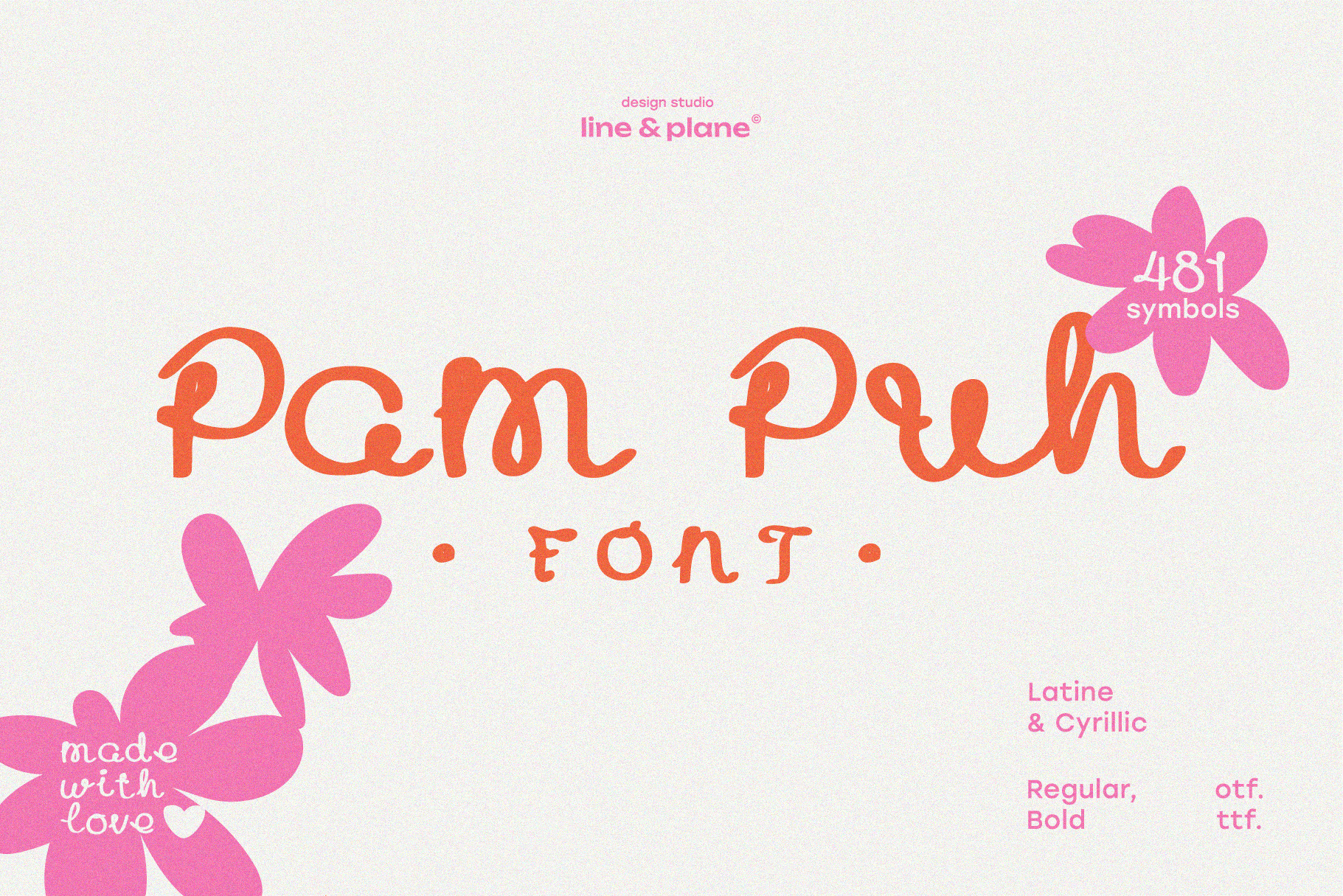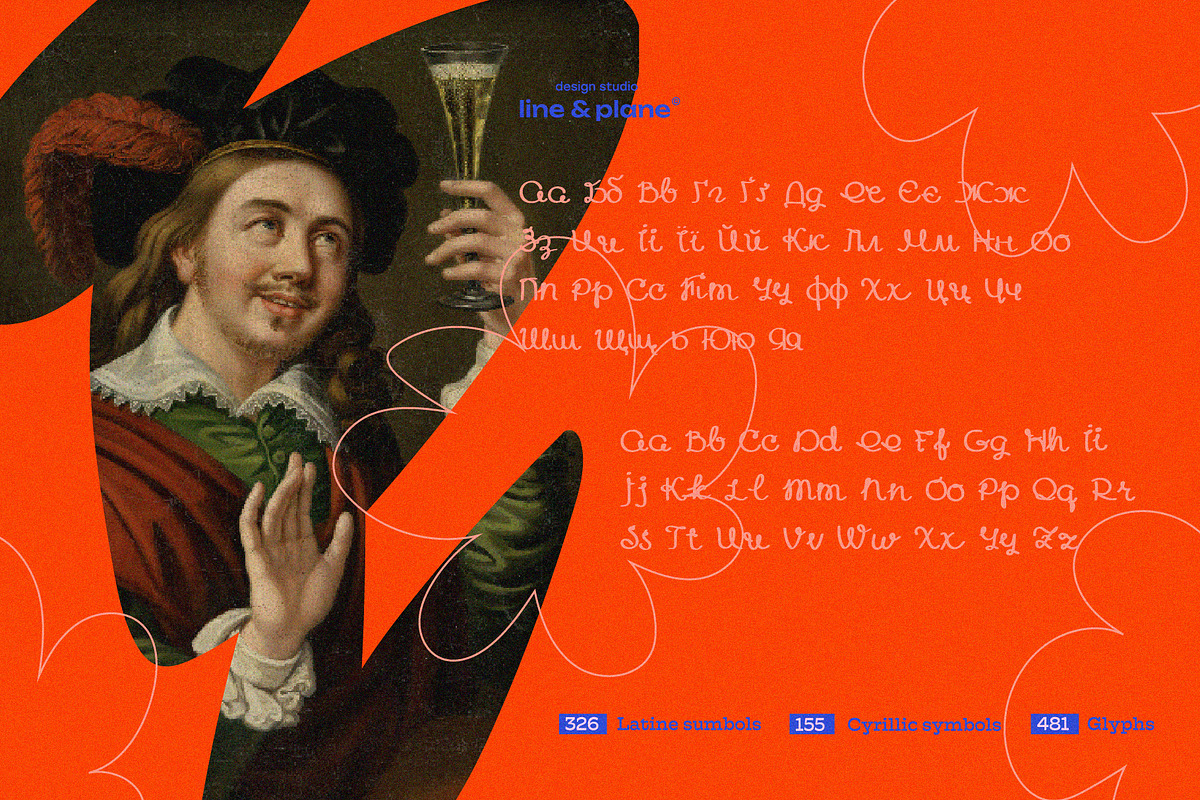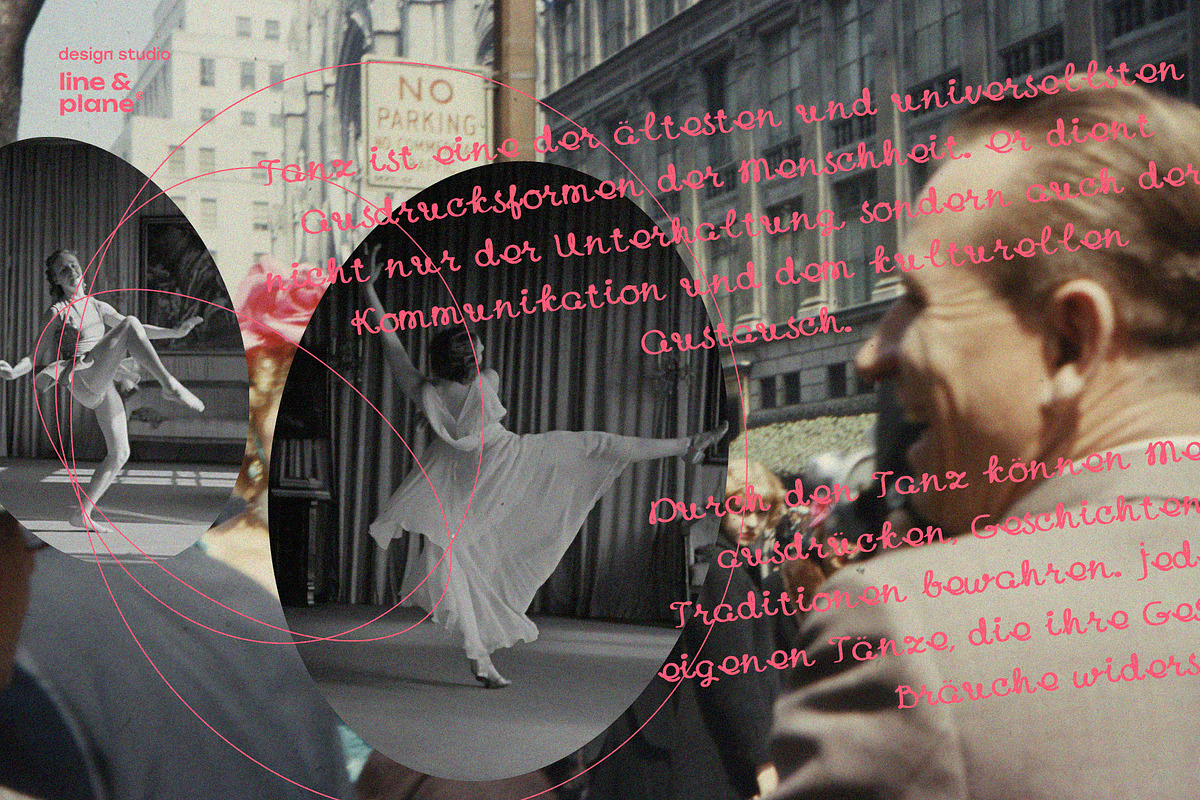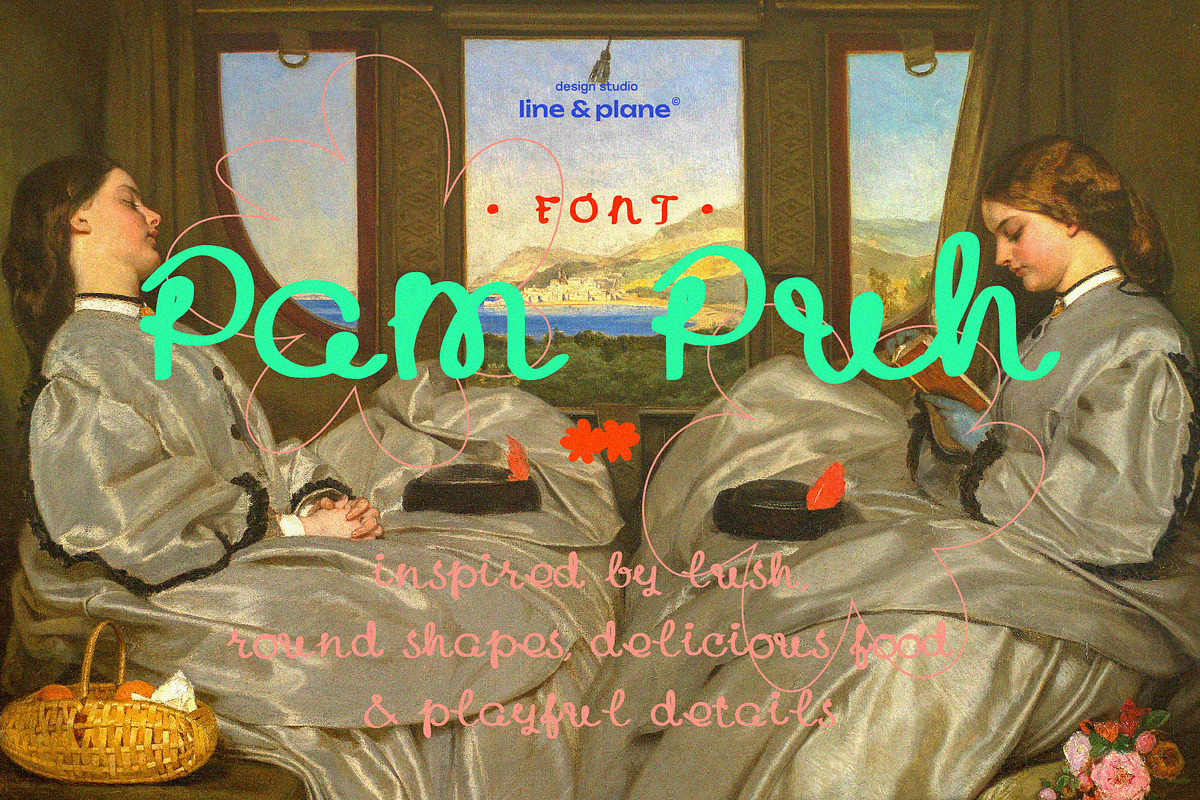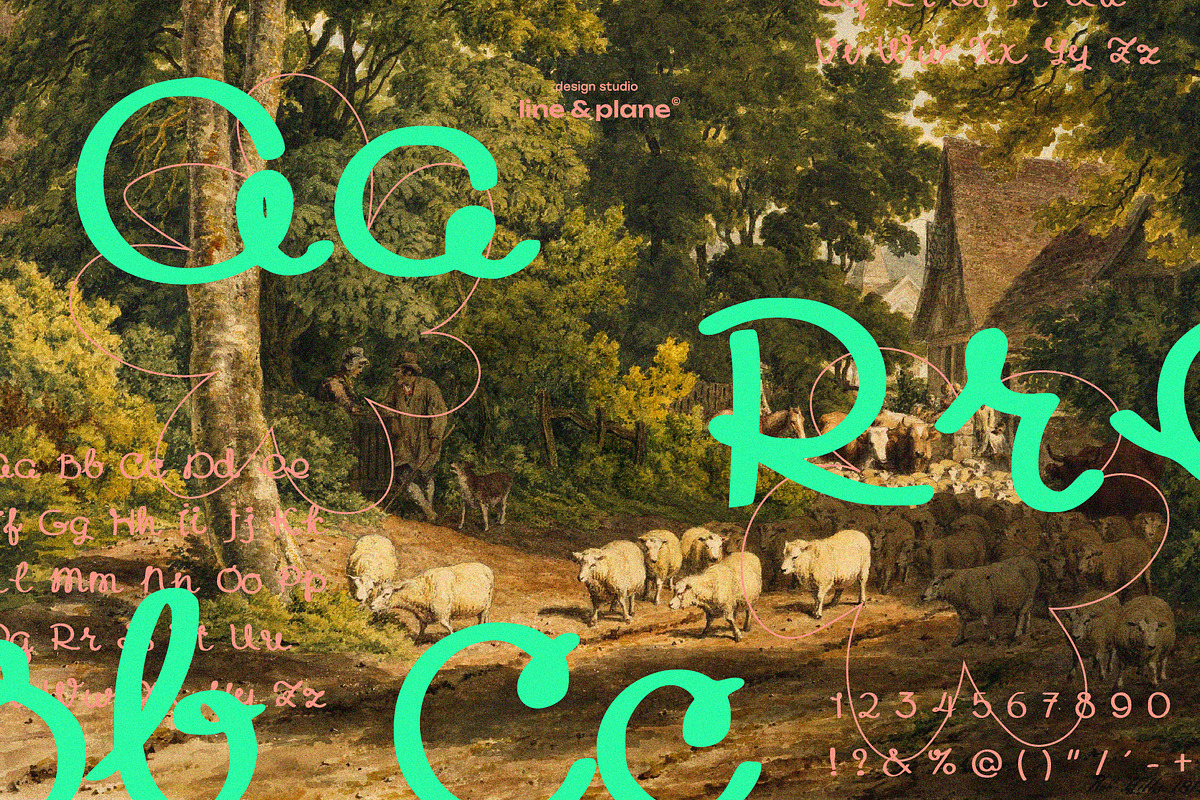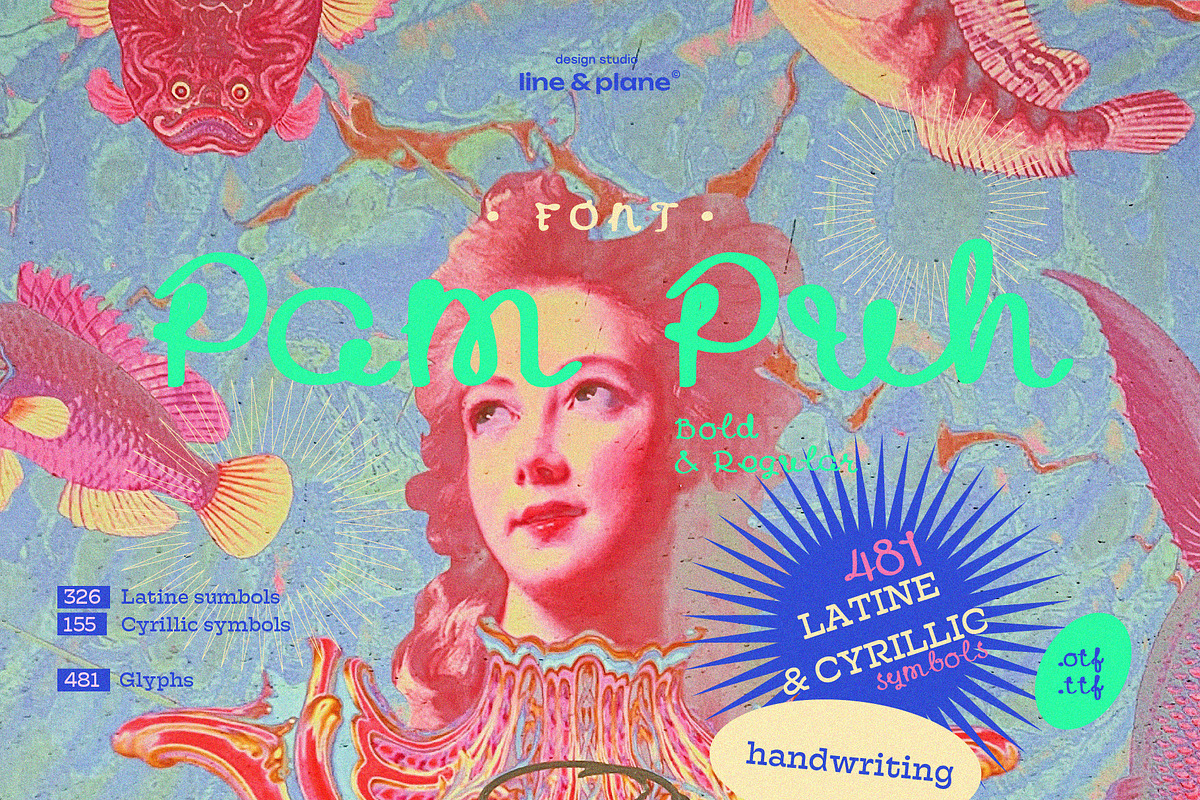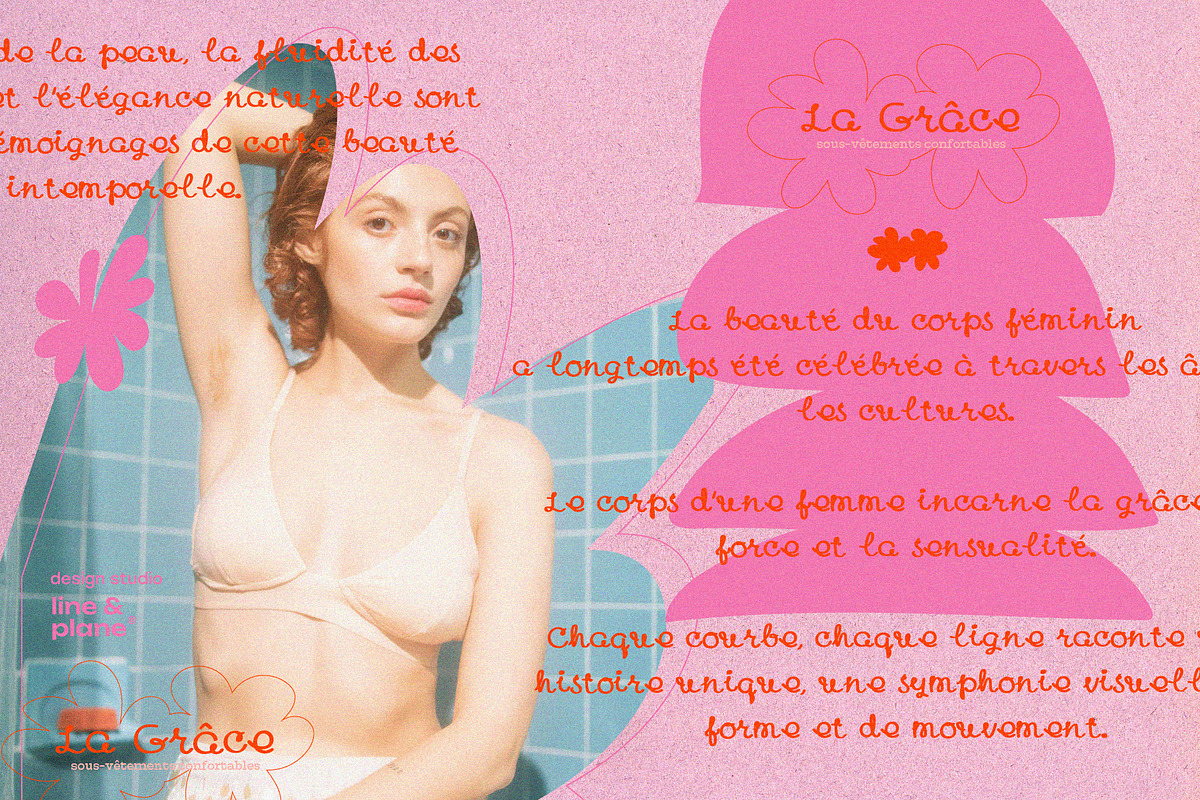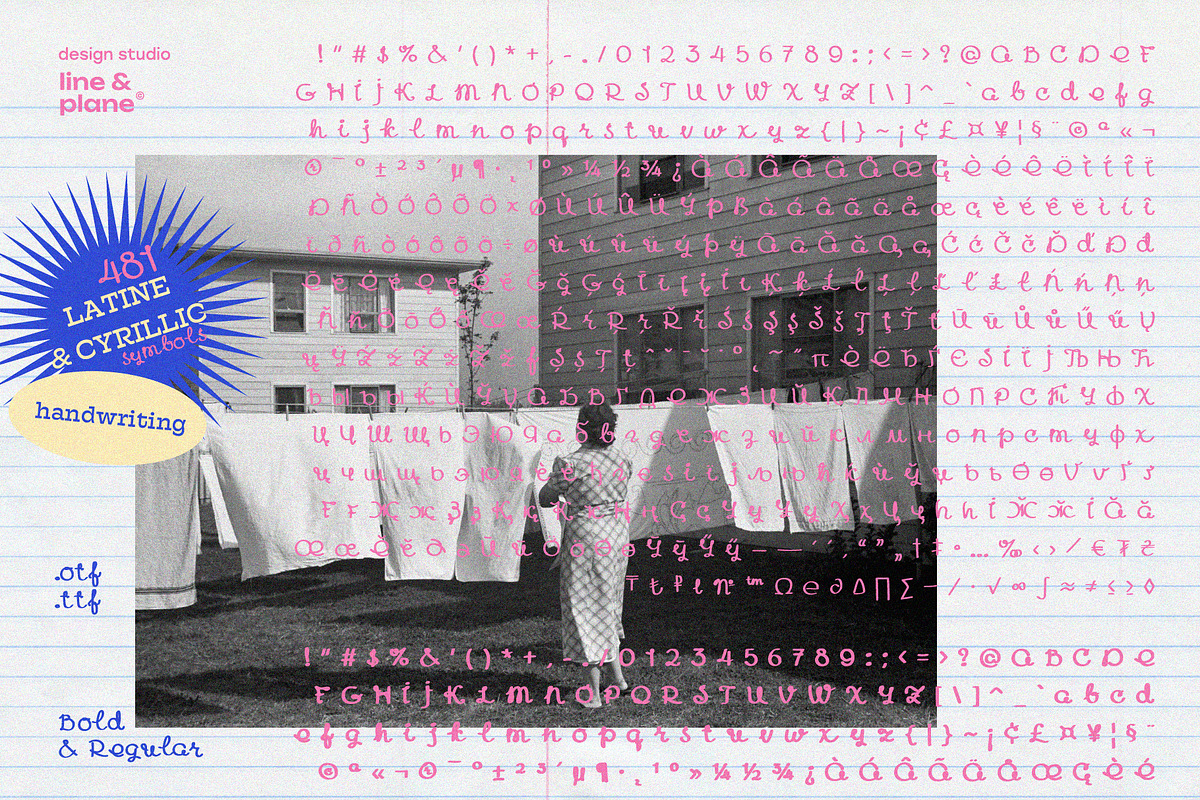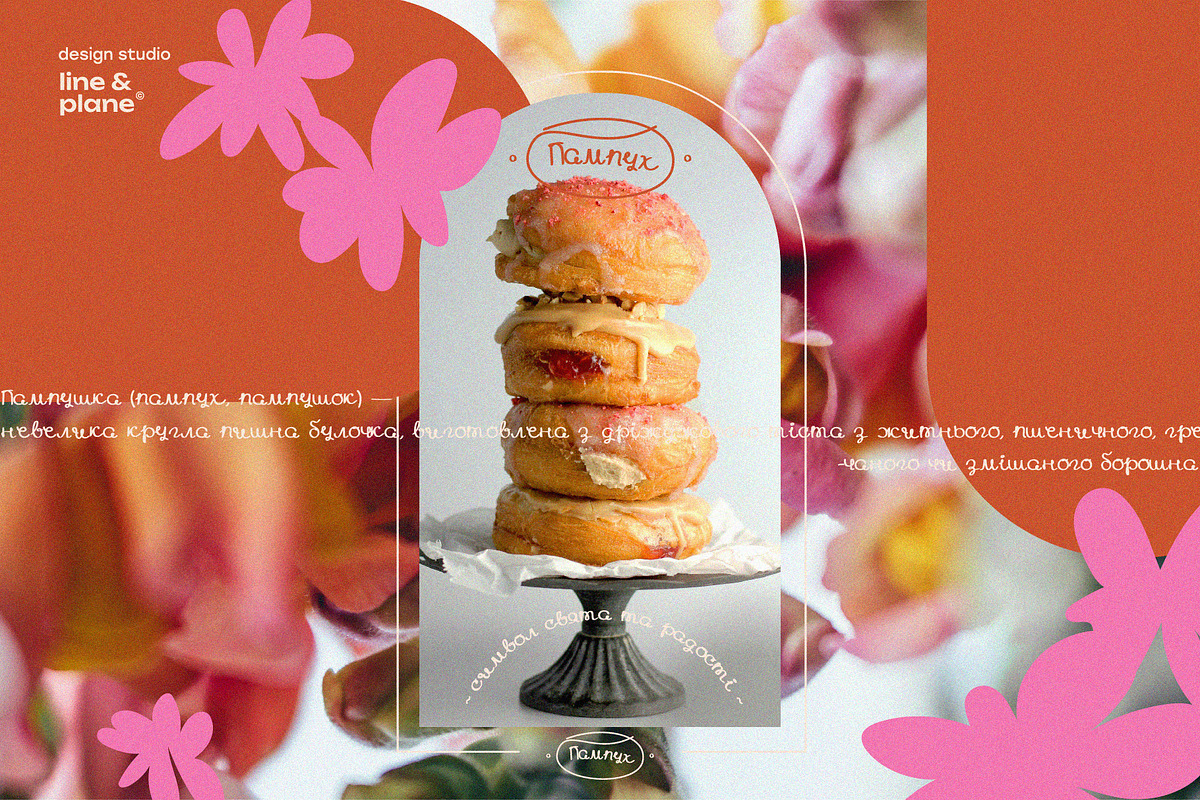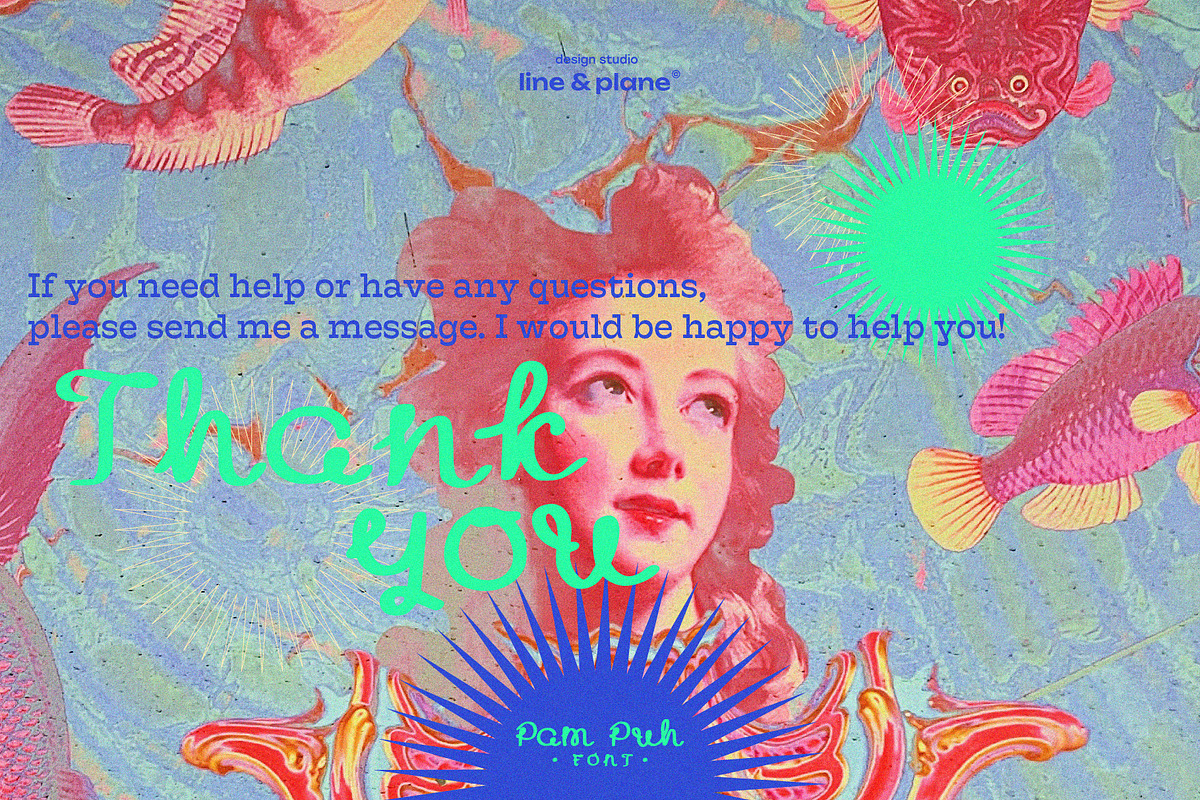
Pam Puh Font - Latine & Cyrillic
Pam Puh Font is a handwriting typeface with soft rounded shapes and lines, inspired by fresh, delicious baked goods, paintings, and playful details. Created with good mood and love.
- 2 characters (Regular & Bold);
- Cyrillic (155) and Latin (326) symbols,
- 481 Glyphs (Uppercase, Lowercase, Number, Punctuation & other),
- suitable for many languages,